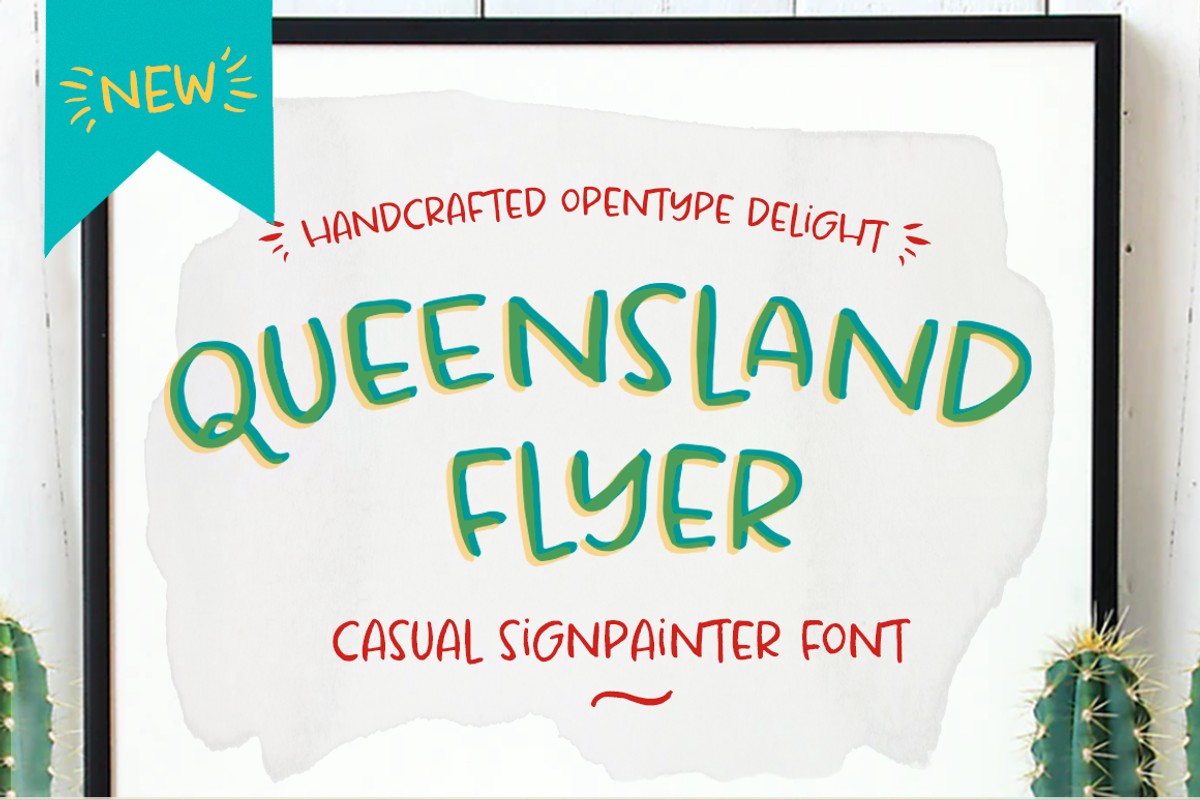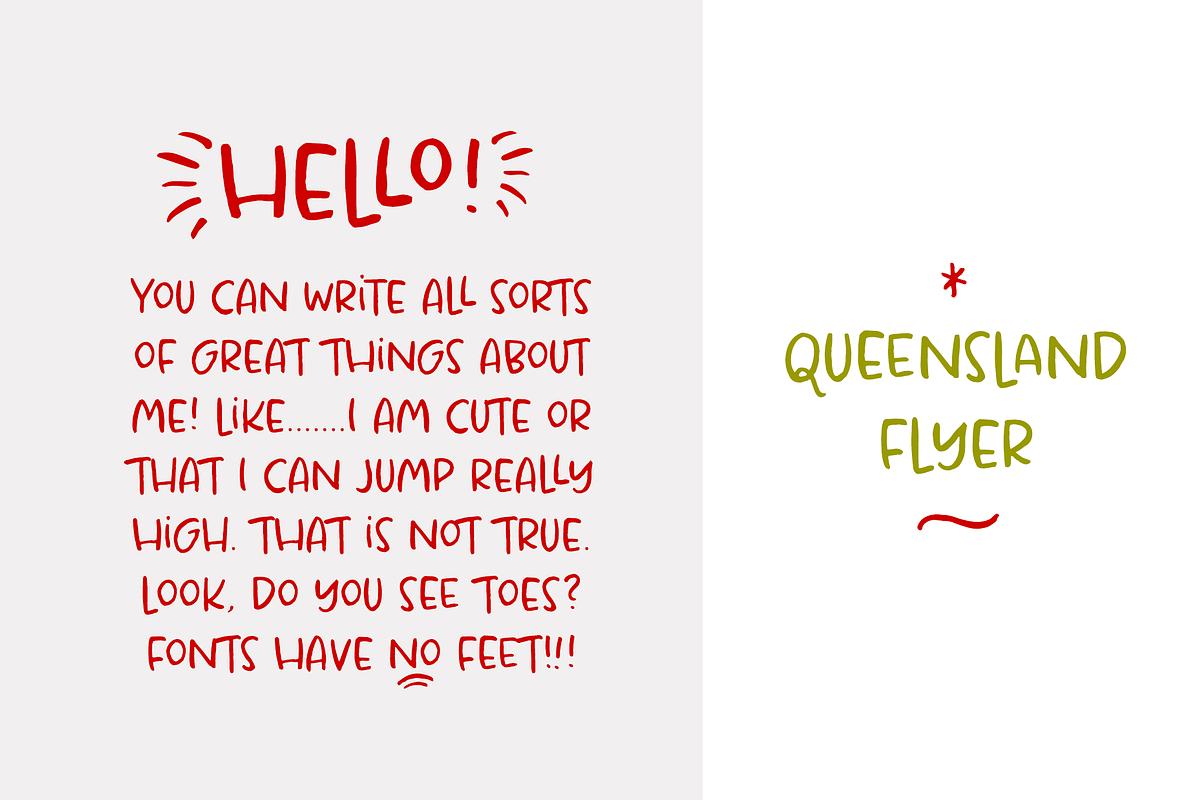
Queensland Flyer
G'Day Mate!
Queensland Flyer is a groovy lil' monocase font perfect for logos, illustrations and games, print or screen. Featuring lots of charm & personality with handpainted goodness. Laid back & easy, Queensland Flyer speaks only English but he speaks it with finesse. Beautifully designed with OpenType features, the standard ligatures replicate handcrafted lettering. Stylish, friendly and handsome to boot, Queensland Flyer is a font that's easy to love.